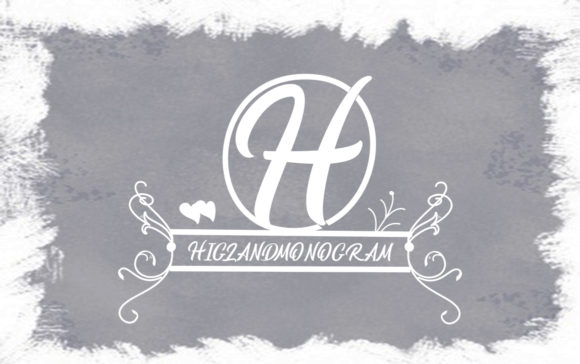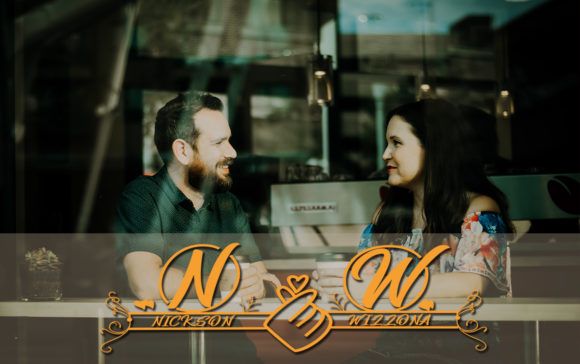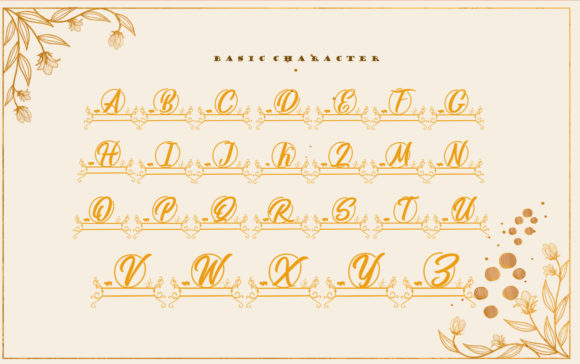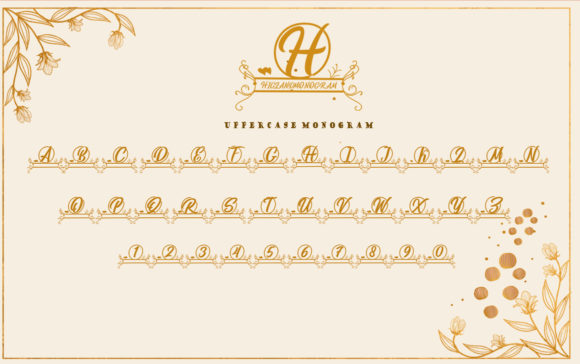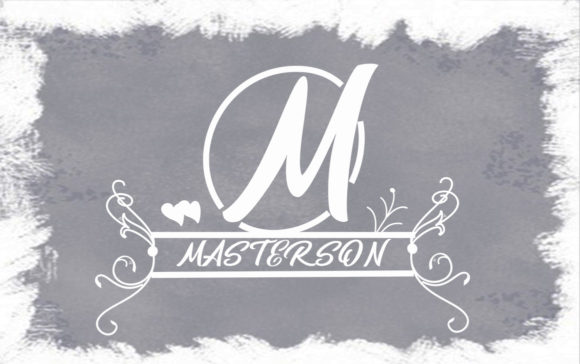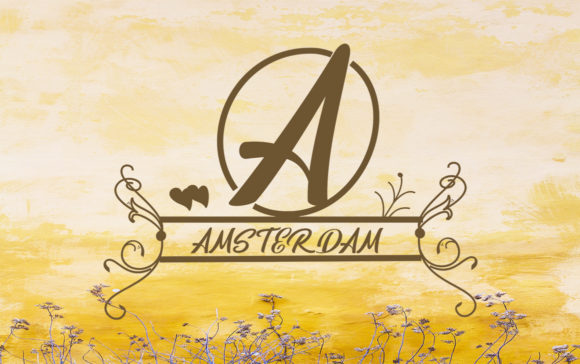
Introduction to Higlandmonogram Font
Higlandmonogram is a beautiful monogram script font.
It features unique characters that are perfect for wedding invitations and stationery Fall in love with its authentic feel and use it to create gorgeous wedding invitations, beautiful stationary art, eye-catching social media posts, and cute greeting cards.